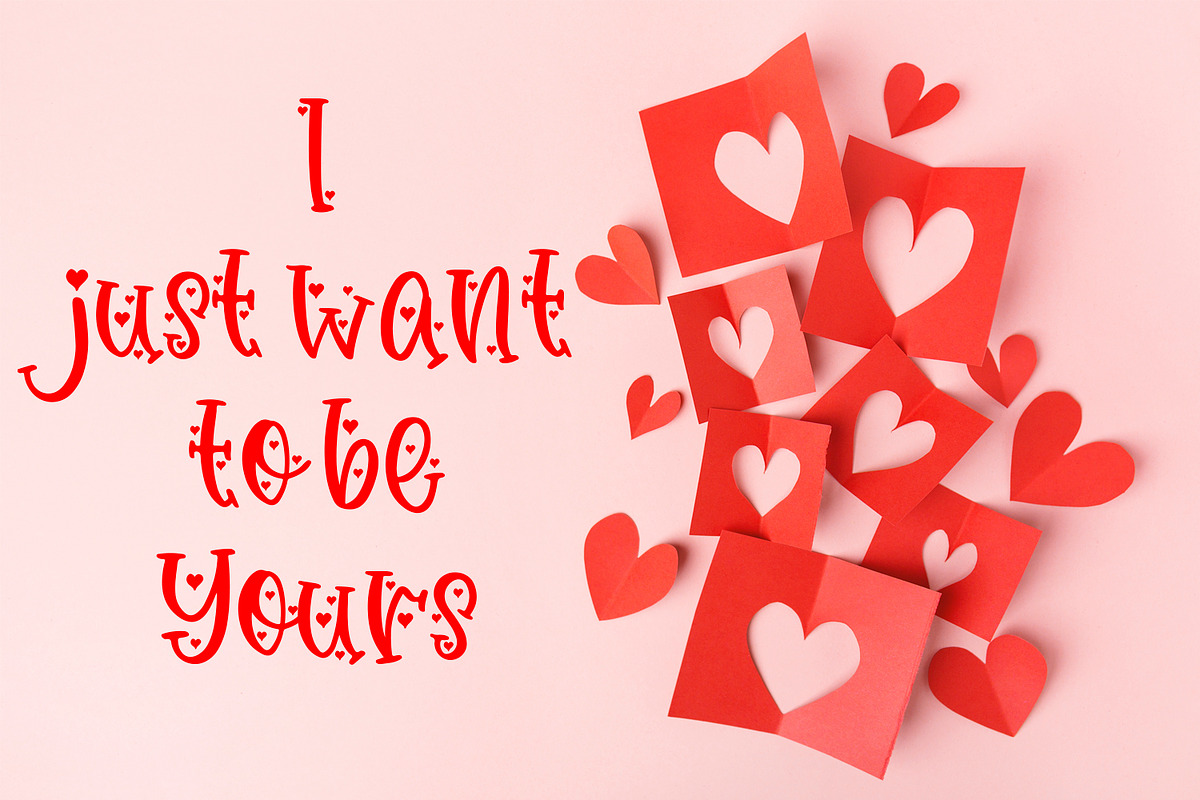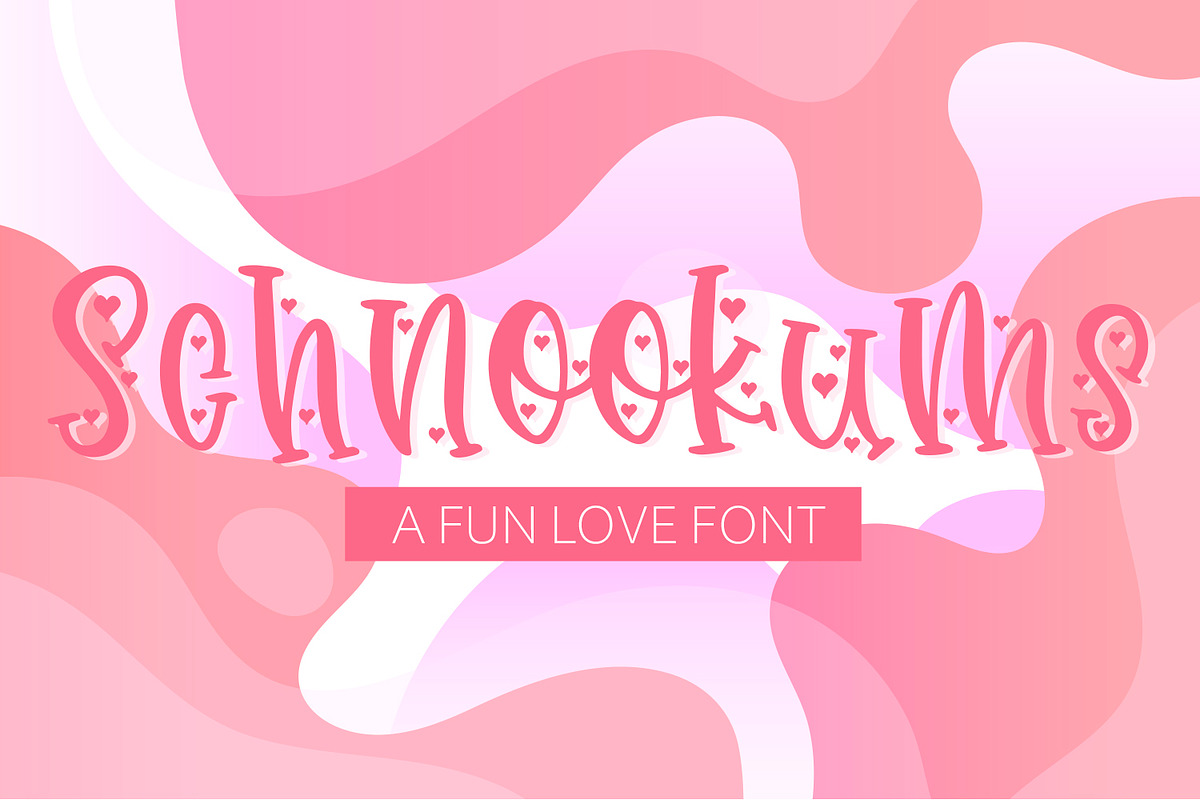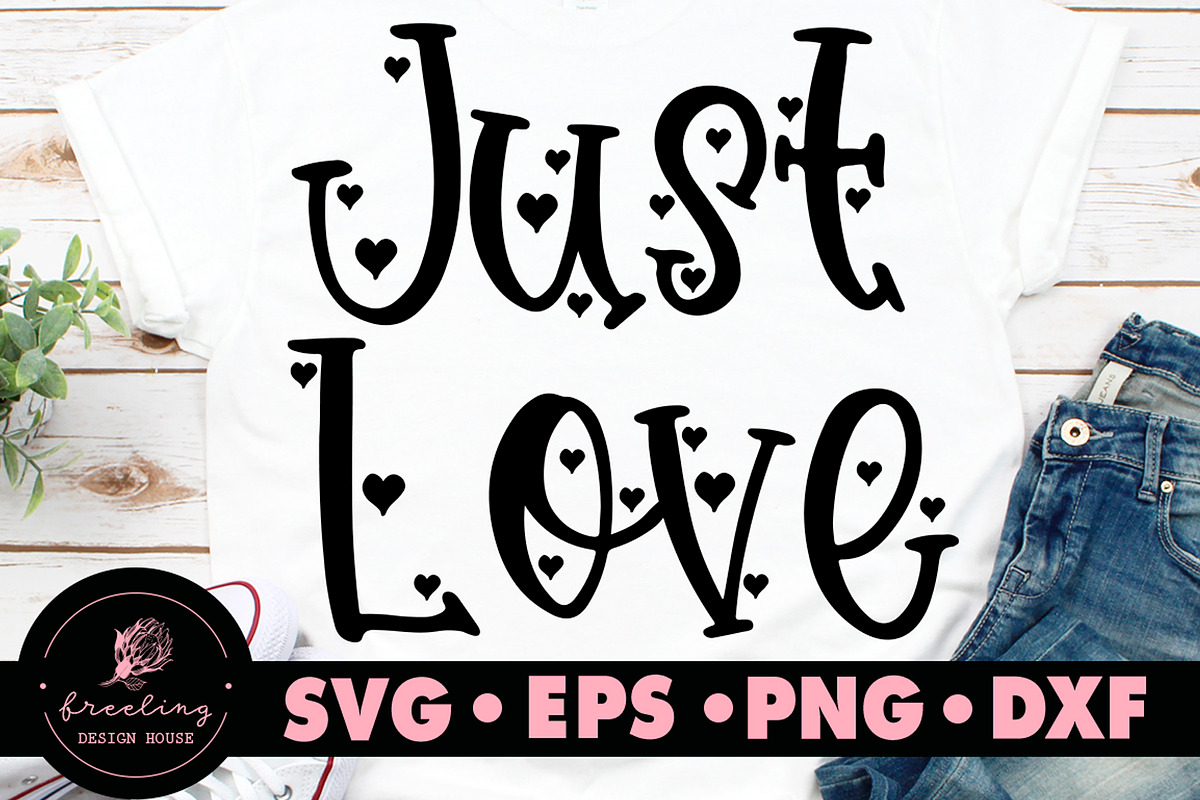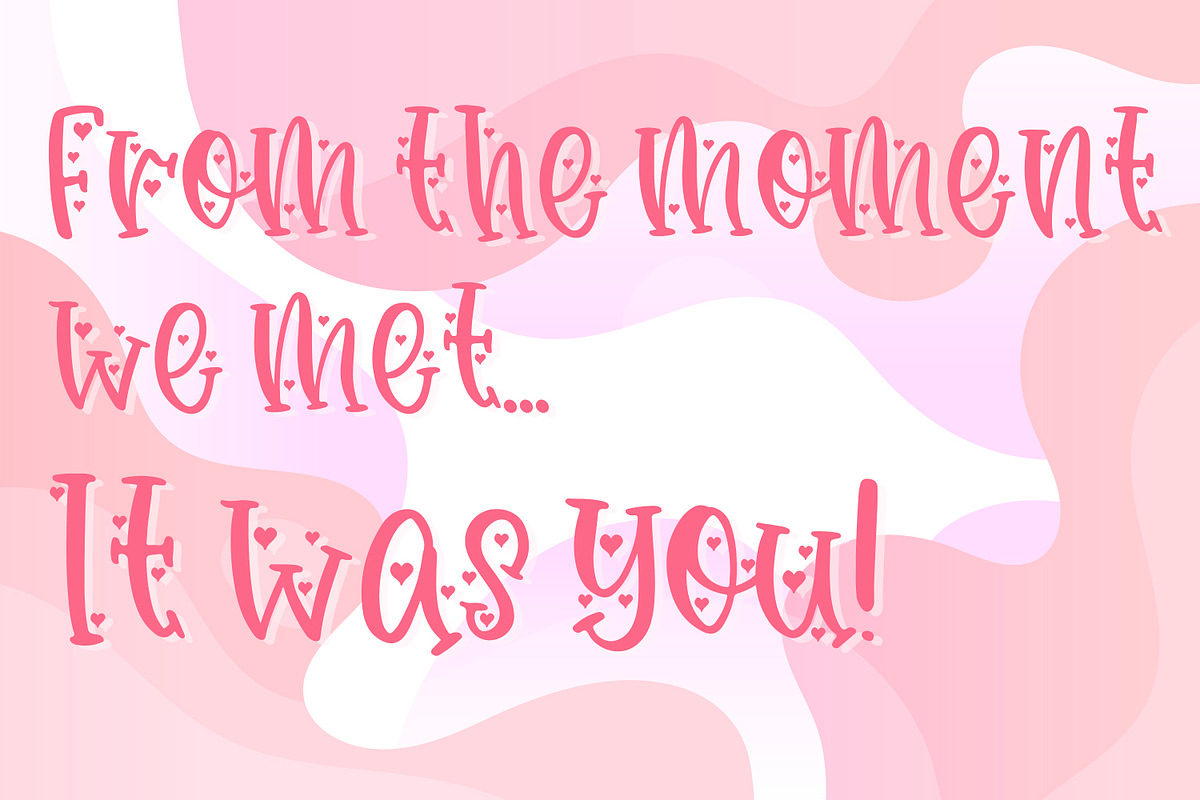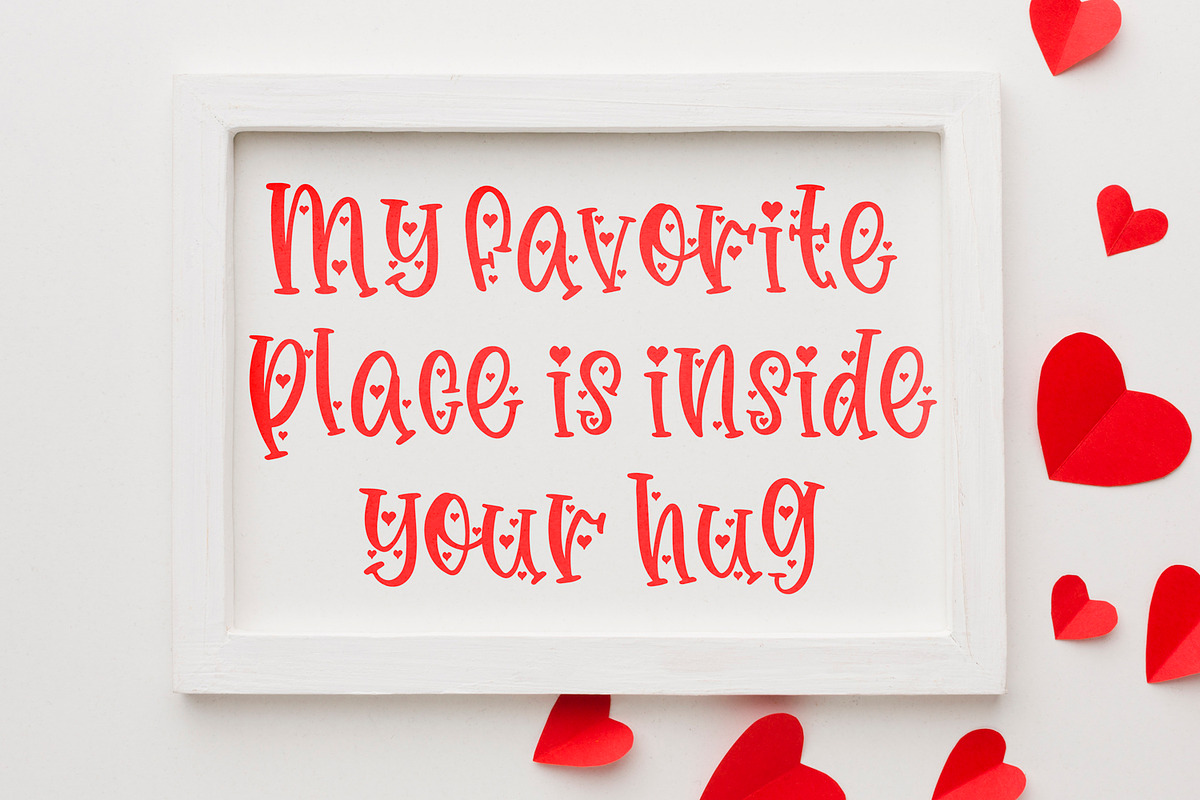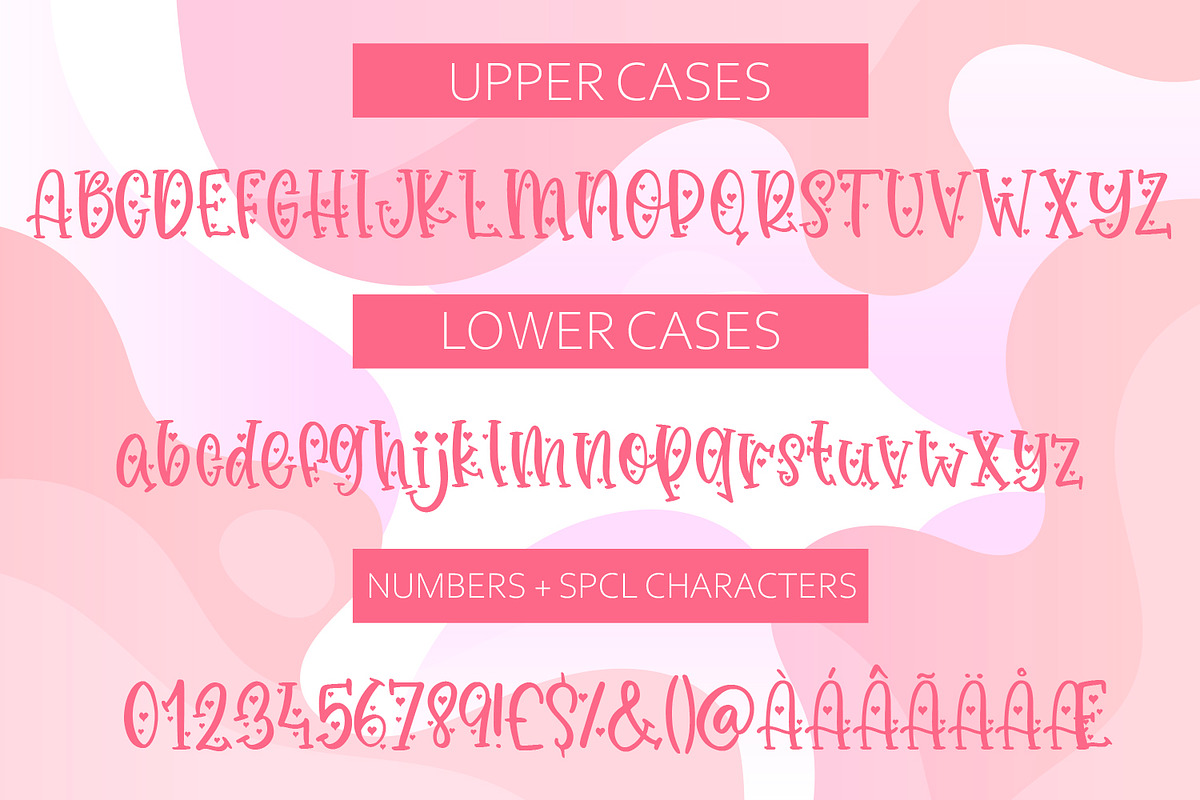
Schnookums
Introducing Schnookums - the perfect font for anyone who wants to add a touch of love and romance to their designs. This handwritten font features a sweet and charming love theme, complete with hearts surrounding each letter. With its unique and adorable style, Schnookums is sure to capture the hearts of your audience.
Whether you're designing wedding invitations, creating Valentine's Day cards, or just want to add a touch of love to your personal projects, Schnookums has got you covered. With its whimsical and romantic design, this font is sure to make a statement and leave a lasting impression.